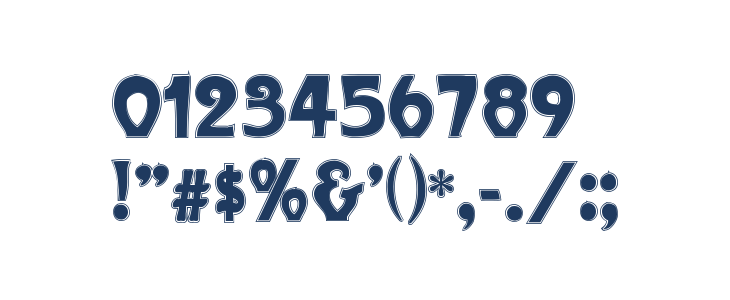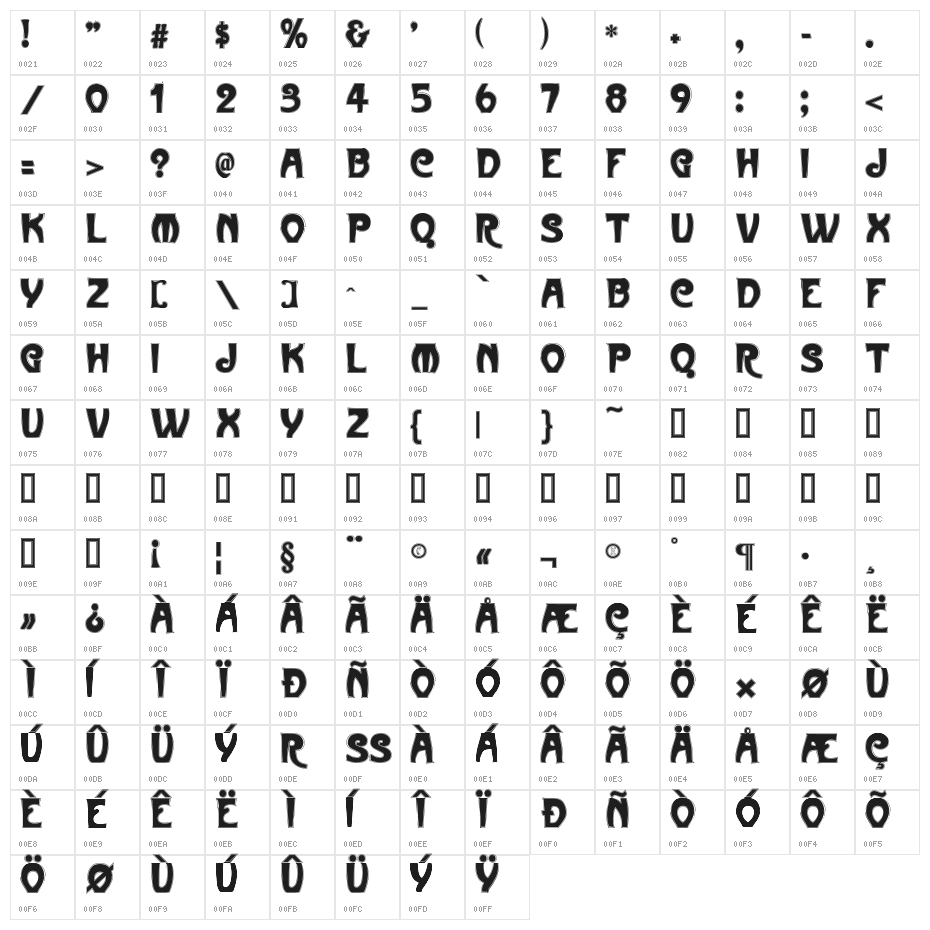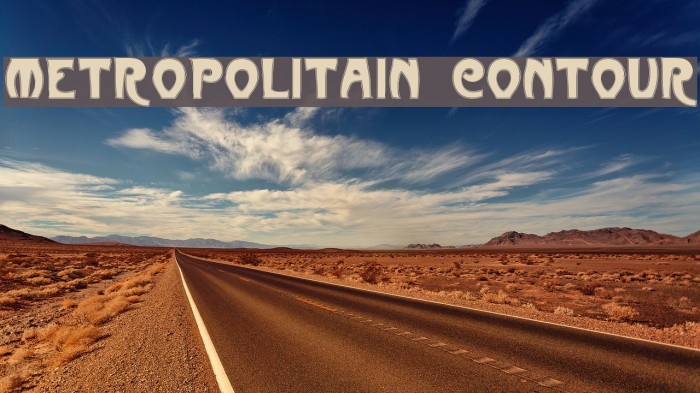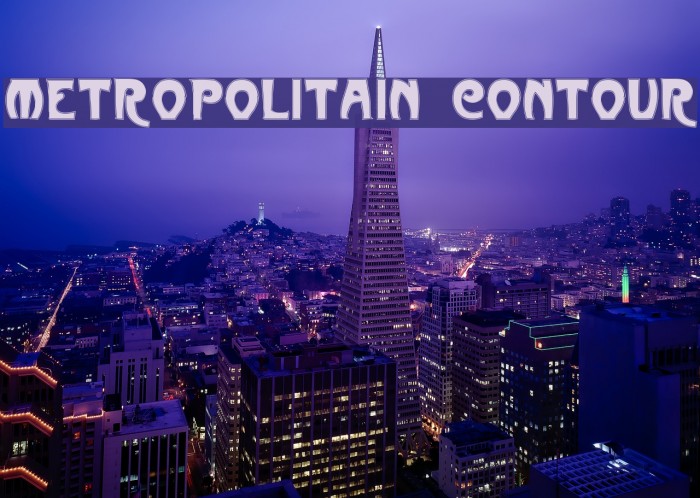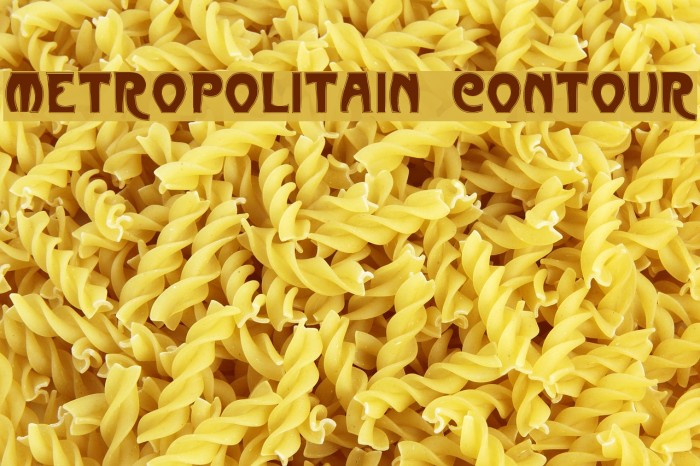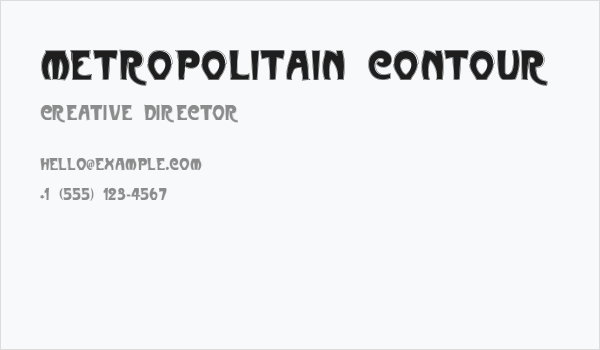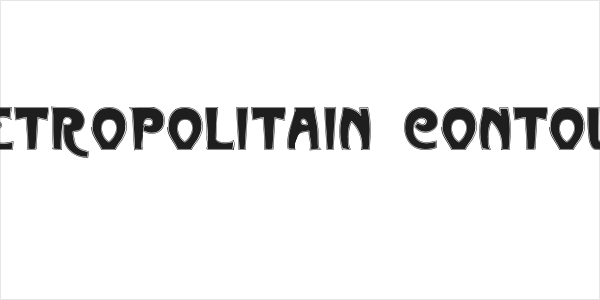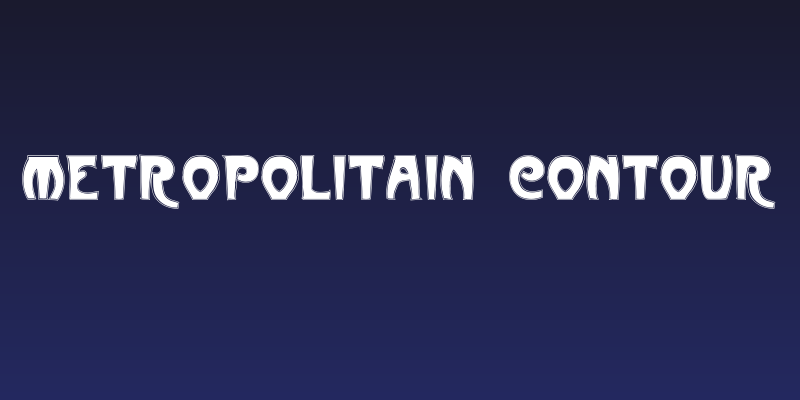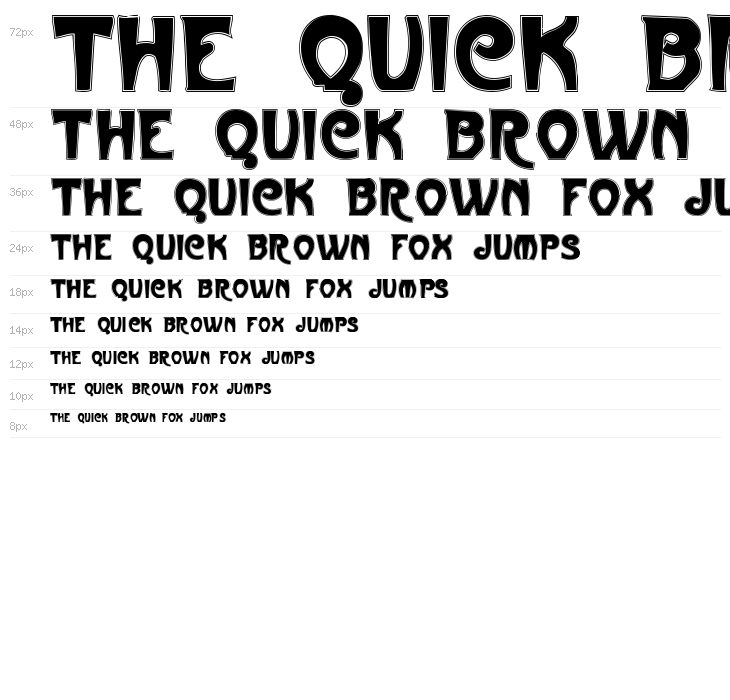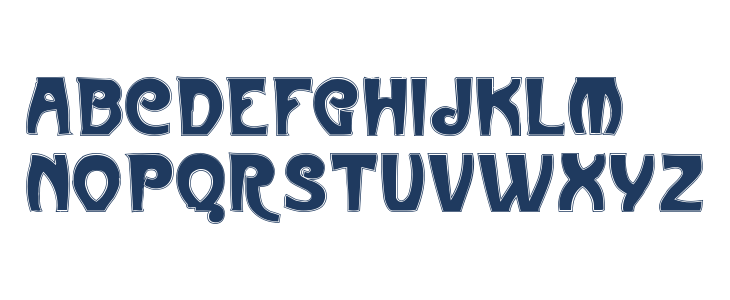
Metropolitain Contour Font
Metropolitain Contour Description
This font features a bold and striking design with a strong contour effect that gives each character a three-dimensional appearance. The uppercase and lowercase letters are crafted with a unique blend of curves and sharp angles, creating a dynamic and eye-catching style. The numbers and special characters maintain this bold contour, ensuring consistency across all glyphs. The font's distinct style makes it ideal for projects that require a strong visual impact, such as posters, headlines, and branding materials. Its decorative nature is complemented by a modern flair, making it versatile for various creative applications.
Overall StyleModern, Decorative
Proposed ProjectsIdeal for posters, headlines, branding, and any project needing a strong visual impact.